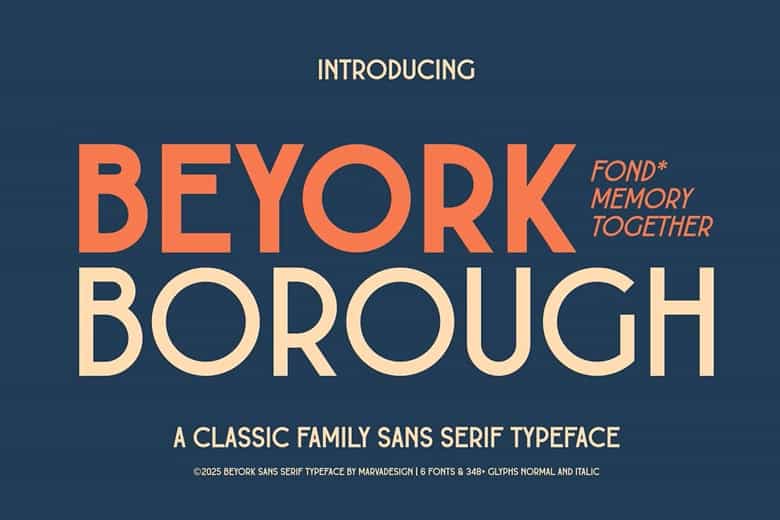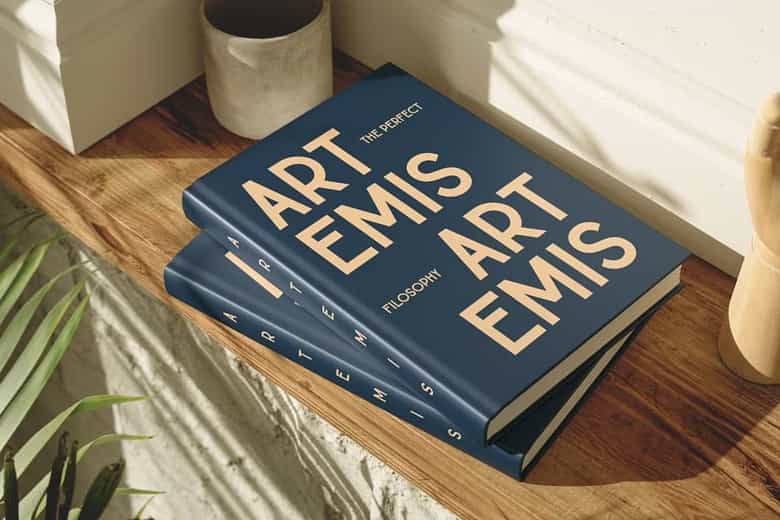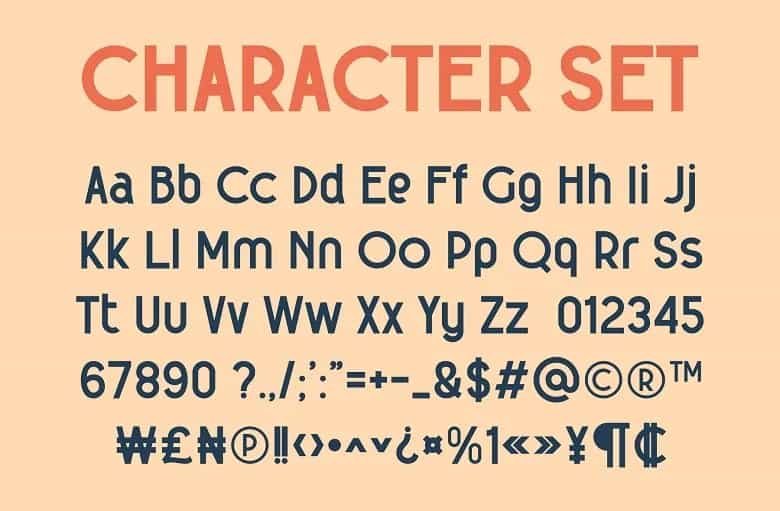
Beyork represents sophistication and it stands as an elegant yet strong font choice which suits complex design needs. The font family contains six style options including Regular, Italic, Semibold and their italic variations along with Bold and Bold Italic types which enable diverse design possibilities. Beyork achieves superior balance through its timeless design which creates a special charm for this typeface.